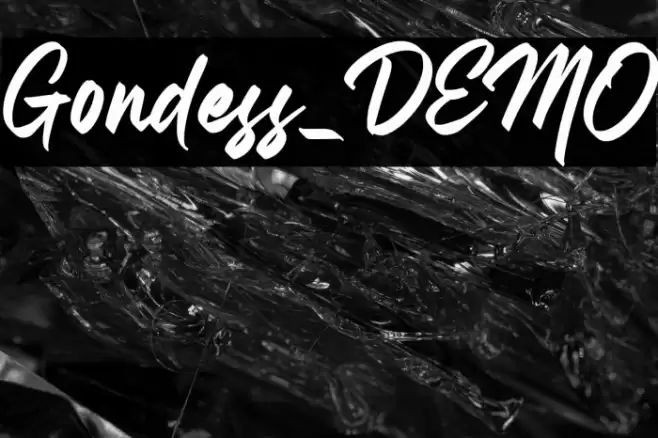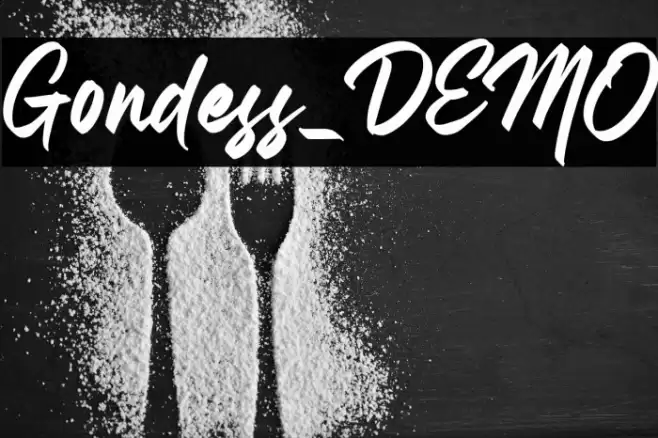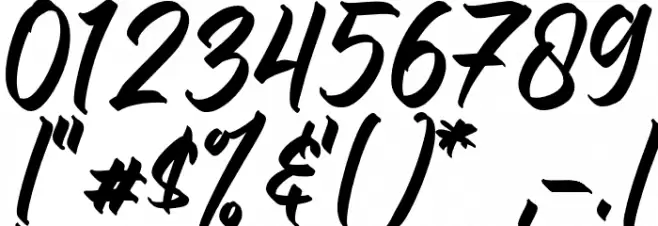
Gondess_DEMO Font
Gondess_DEMO Description
This font features a dynamic and expressive script style, characterized by its fluid, handwritten appearance. The letters are bold and slightly slanted, giving a sense of motion and energy. The strokes are thick and consistent, with a high contrast between the thick and thin parts of the letters. This creates a dramatic and eye-catching effect. The uppercase letters are particularly striking, with exaggerated loops and curves, while the lowercase letters maintain a more consistent baseline. The numerals and special characters follow the same stylistic cues, ensuring a cohesive look across all characters.
A bold, expressive script font with high contrast and dynamic strokes from Regular fonts.
- Proposed Projects: Ideal for branding, logos, and headlines where a bold, artistic touch is desired.
- Use Case: Logos, Headlines, Branding